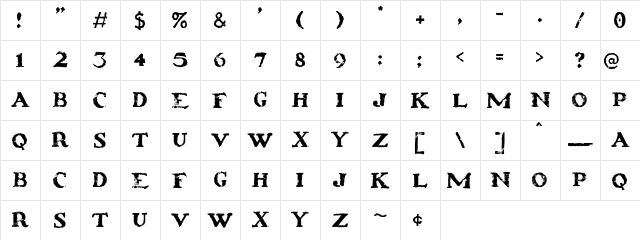
Complete 20th Century Woodcut Regular glyph index. Displaying only characters natively supported by 20th Century Woodcut Regular font.
20th Century Woodcut echoes the hand-painted signage and woodblock typography of the American frontier, with a warm, rugged personality.
Font Pairing: Combine 20th Century Woodcut with a simple slab or neutral sans - period-accurate companions reinforce the vintage feel without competing for attention.
Pro Tip: Use 20th Century Woodcut for short, impactful bursts of text - it shines in poster headlines and product names rather than extended copy.